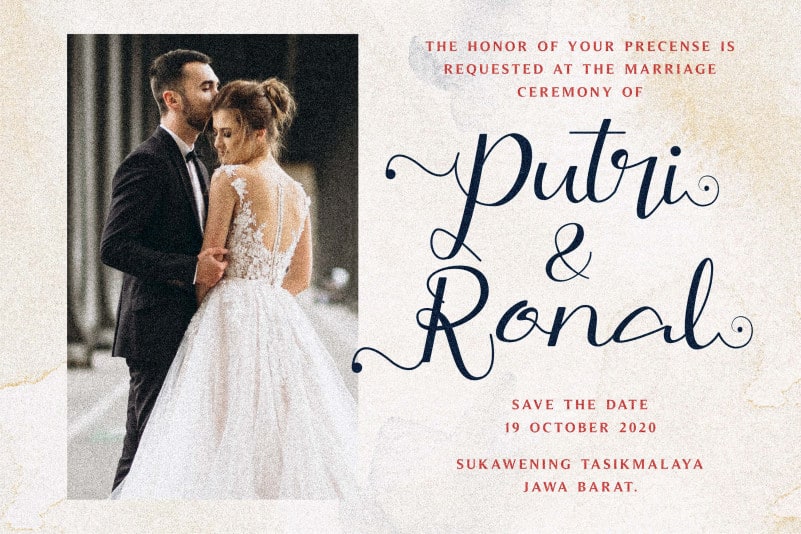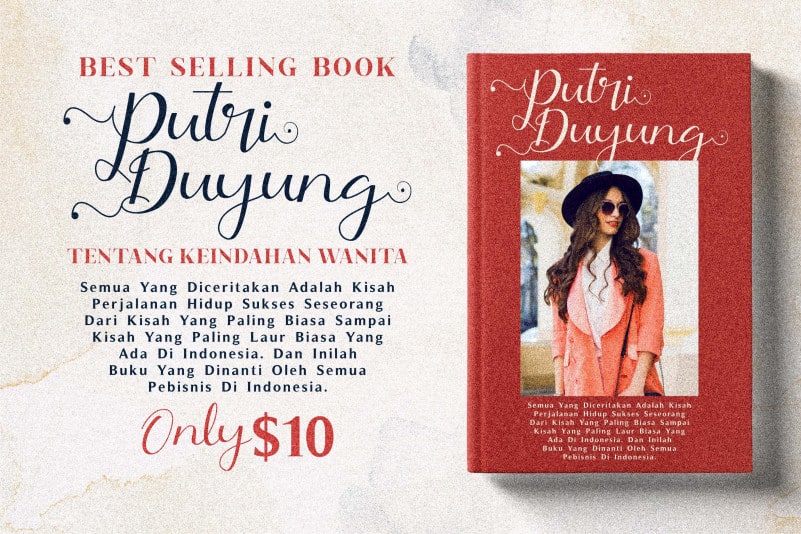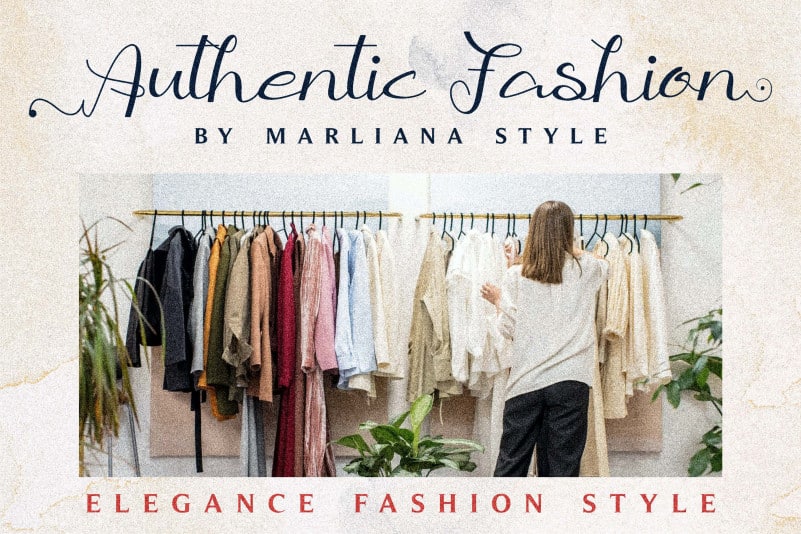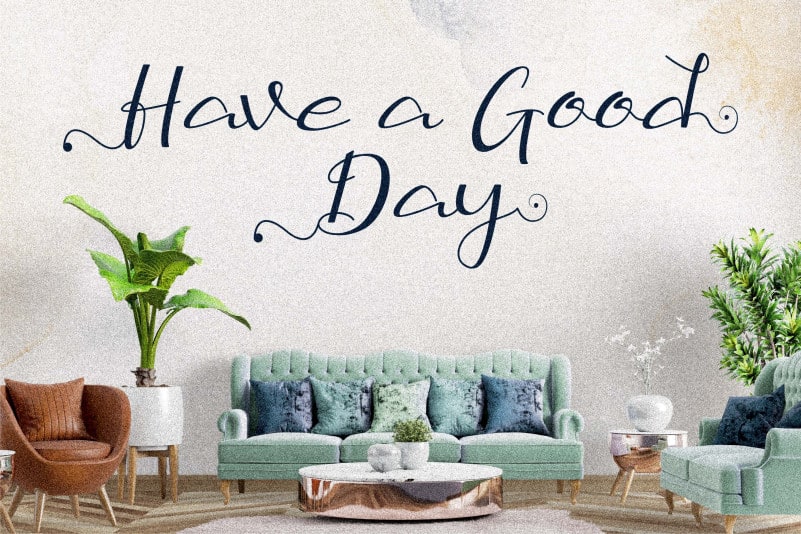
Putri Duyung Calligraphy Font
Putri Duyung Calligraphy Font is a flowing handwritten font, described by an elegant touch, perfect for your favorite projects. Fall in love with its incredibly distinct and timeless style and use it to create spectacular designs! This font is PUA encoded which means you can access all of the glyphs and swashes with ease!